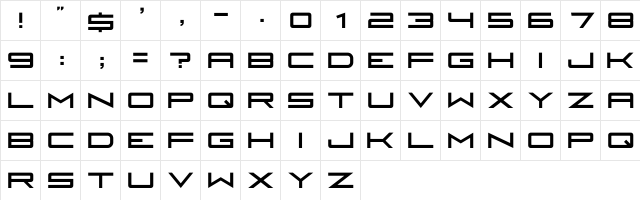
Fireye GF Headline Regular
Design Context for Fireye GF Headline Typeface
Fireye GF Headline is a composed and adaptable typeface that performs quietly and consistently across a wide range of design contexts.